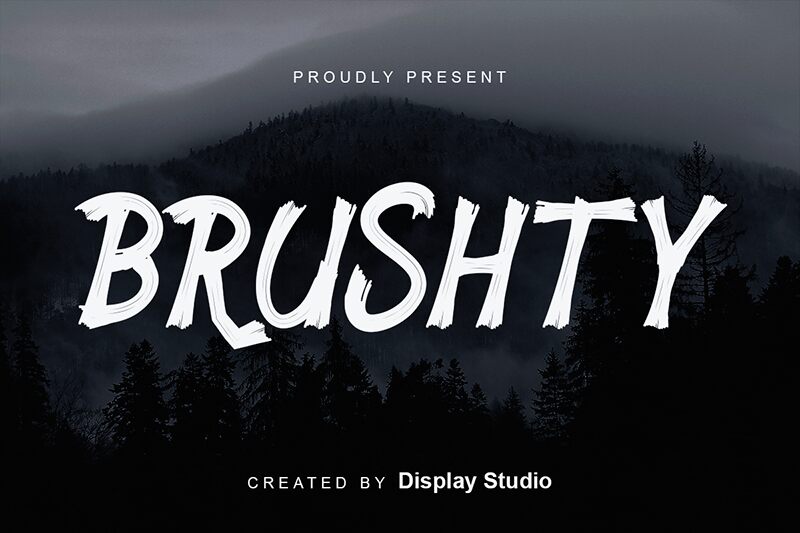
Brushty
Introducing Brushty, the bold and captivating brush font designed by Display Studio. This versatile typeface is perfect for a wide range of creative projects, from edgy logos to eye-catching posters and everything in between. Brushty's expressive strokes and textured lines add a touch of raw energy to any design, making it the ideal choice for projects that require a bit of attitude and personality. Whether you're looking to create a powerful brand identity or simply want to add some flair to your next project, Brushty is sure to make an impact. So go ahead, unleash your creativity with this bold and dynamic brush font!